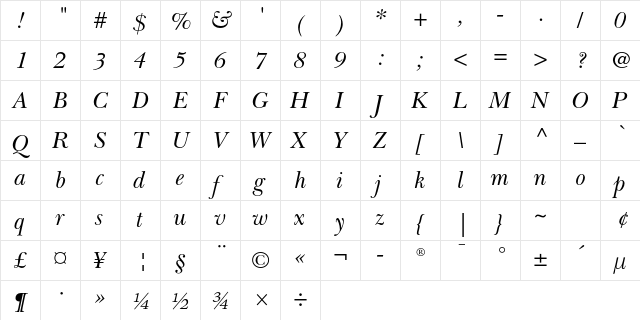
Baskerville Cyrillic LT Std Inclined Font Preview
Baskerville Cyrillic LT Std Inclined
| Designer | Linotype Staff |
Design Context for Baskerville Cyrillic LT Std Typeface
Baskerville Cyrillic LT Std offers clean, dependable letterforms without strong stylistic allegiance, making it a practical choice for designers who need flexibility. Its slender proportions lend an understated elegance to any composition.